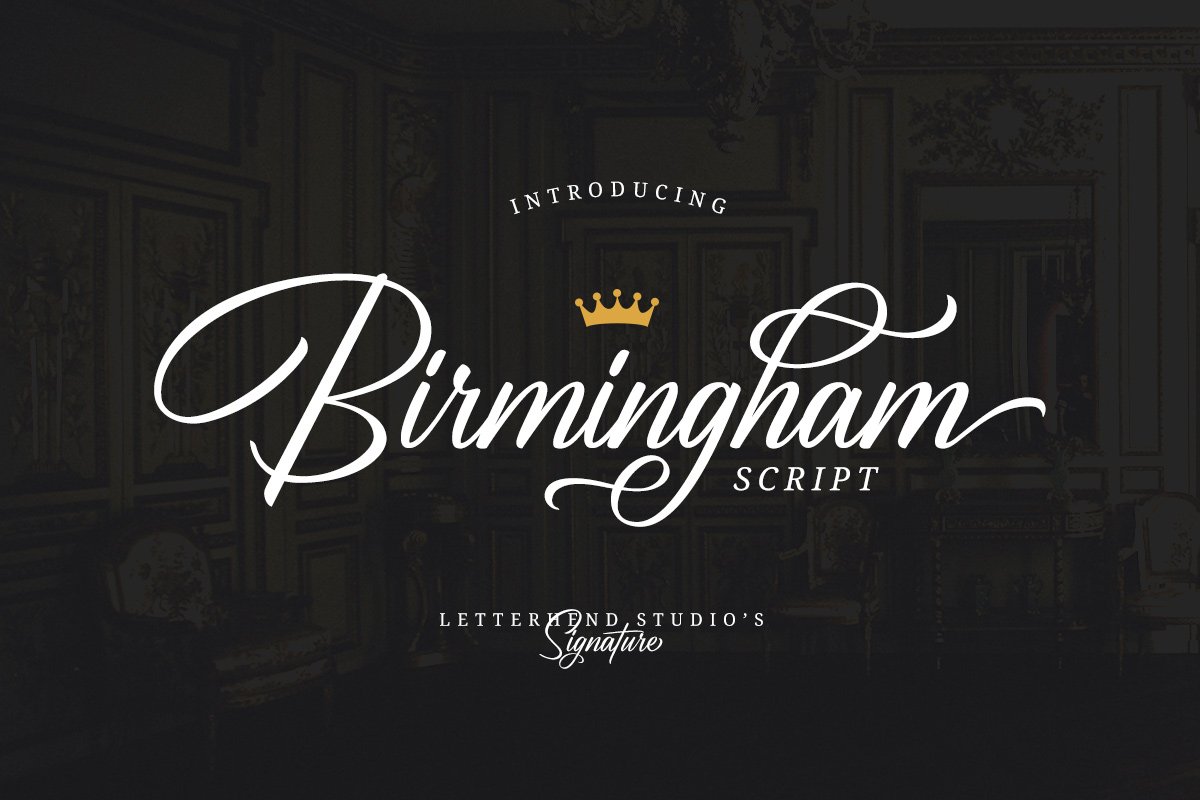
Birmingham Font
Birmingham Font is widely used in traditional newspaper layouts, classic book publishing, heritage brand identities, academic institution materials, government document designs, historical society publications, legal firm communications, and distinguished editorial projects.
Birmingham Font is an exciting typeface that honors the rich tradition of English typography with its dignified character and timeless elegance. This font embodies scholarly sophistication and institutional authority, making it perfect for organizations that want to convey heritage, credibility, and enduring quality in their professional communications.
The Birmingham Font family includes Regular, Bold, Light, Italic, Medium, Small Caps, Condensed, and Extended variants. This distinguished collection provides designers with comprehensive options for creating authoritative typographic hierarchies that maintain classical elegance while serving modern communication needs.
Birmingham Font Free Download offers exceptional institutional credibility for designers working with established organizations and traditional sectors. The font's authoritative presence and refined character create an immediate sense of trustworthiness and academic excellence. This typeface excels in applications where tradition, scholarship, and professional reputation must combine to establish lasting institutional credibility.
The distinctive authority of Birmingham Font lies in its faithful interpretation of classical English typographic principles combined with modern technical precision. Each letterform maintains the dignified proportions and traditional details that have defined quality typography for centuries. The font's balanced contrast and careful spacing create readable text that conveys both intelligence and accessibility in formal communications.
Educational institutions and established organizations choose Birmingham Font for its ability to communicate tradition without appearing outdated or inflexible. The typeface works magnificently in university publications, museum materials, legal documentation, and corporate heritage communications. Its classical aesthetic appeals to audiences who value education, tradition, and the proven reliability of established institutions.
The scholarly craftsmanship of Birmingham Font includes extensive character sets, professional ligatures, and precise kerning that ensures optimal performance in complex academic and legal documents. These institutional-grade specifications make it particularly suitable for formal publications, archival materials, and applications where typographic excellence and historical continuity must meet the highest standards of professional presentation.